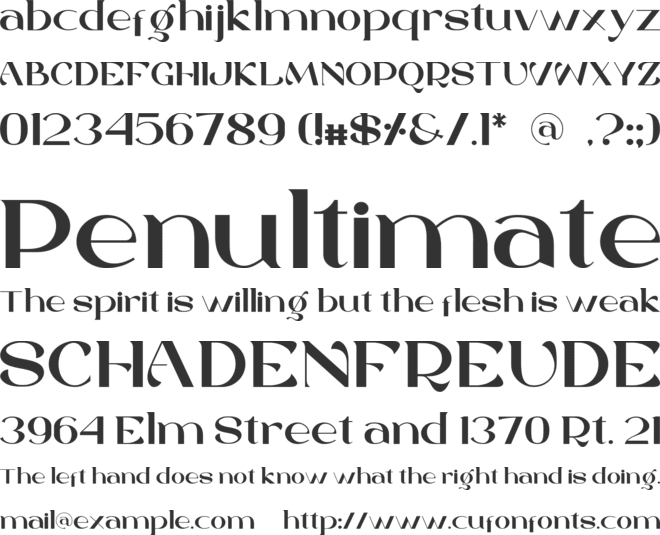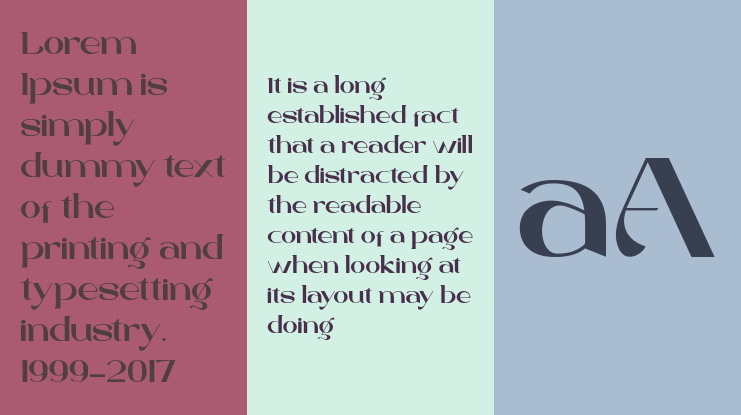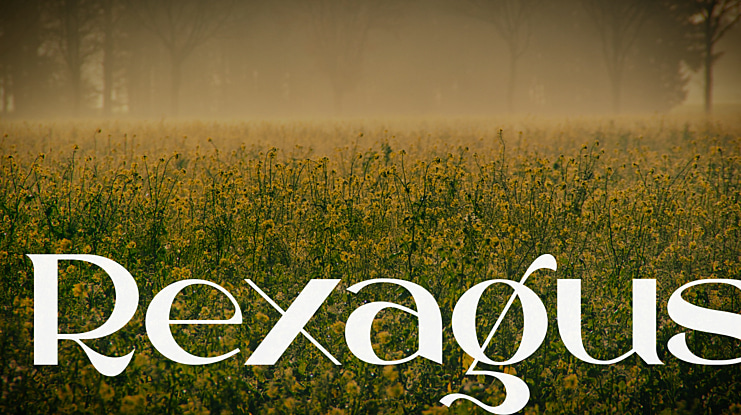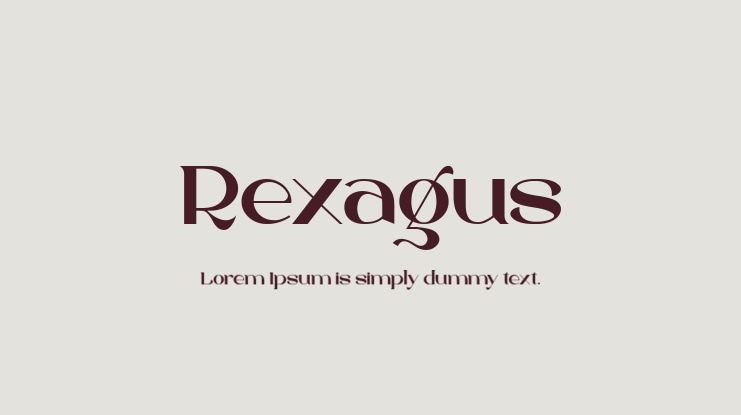
Rexagus Font
The latest collection from Liarttype is Rexagus sans serif font with a modern and unique style and is equipped with several alternates and ligatures and is multilingual. Rexaus is suitable for use in your work as a logo, branding, landing page, logotype and others.